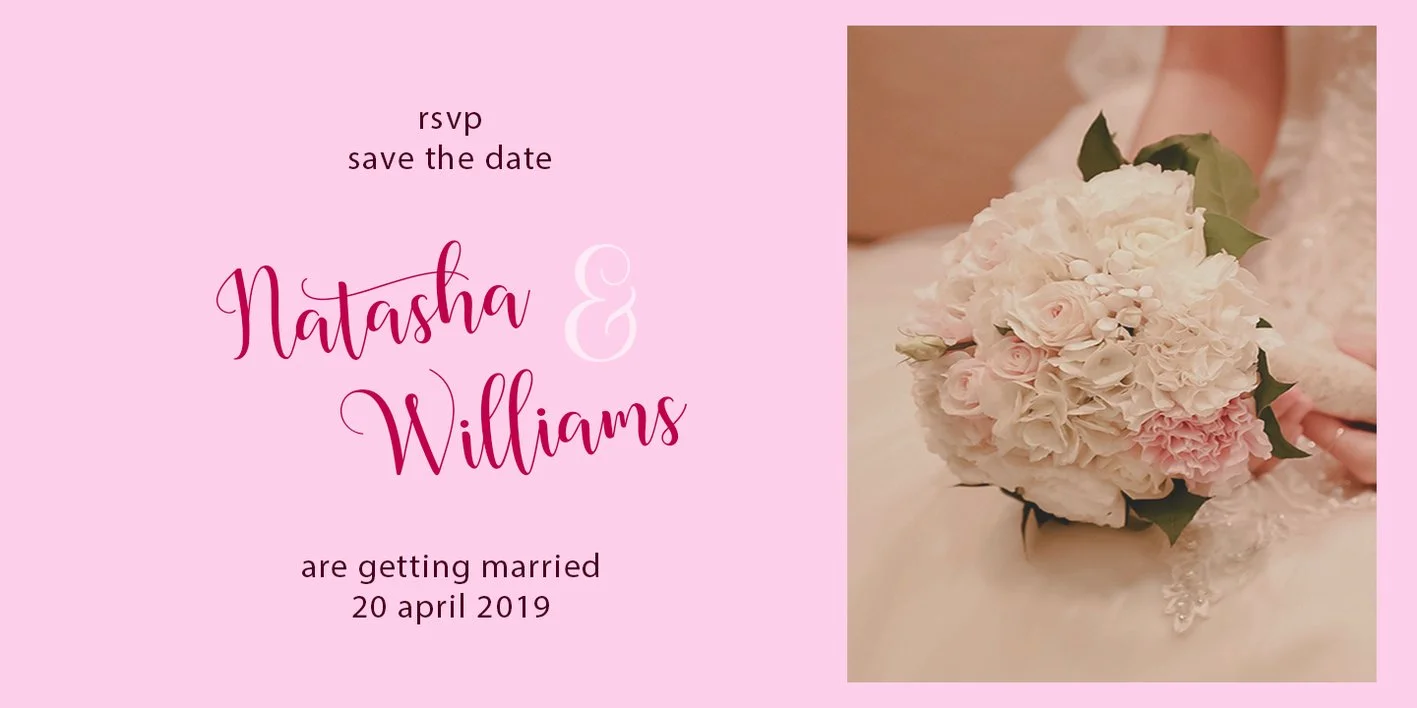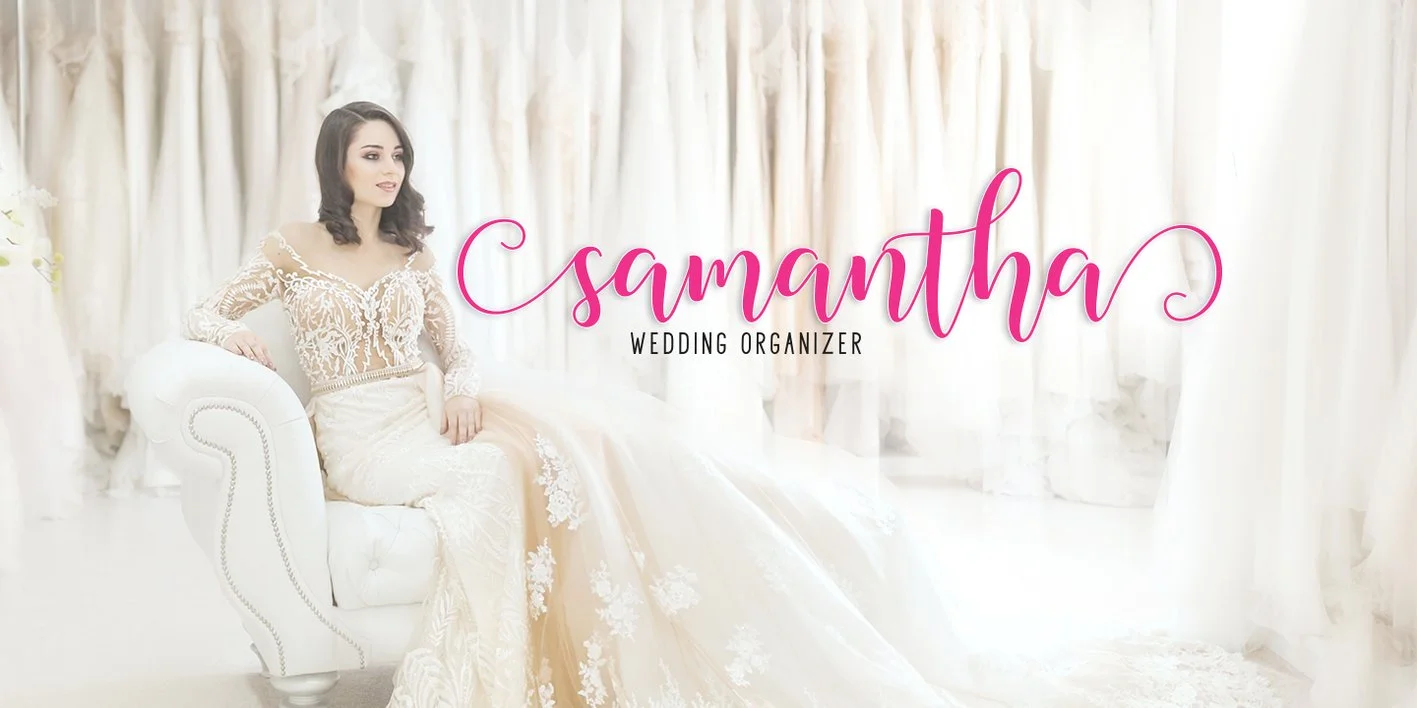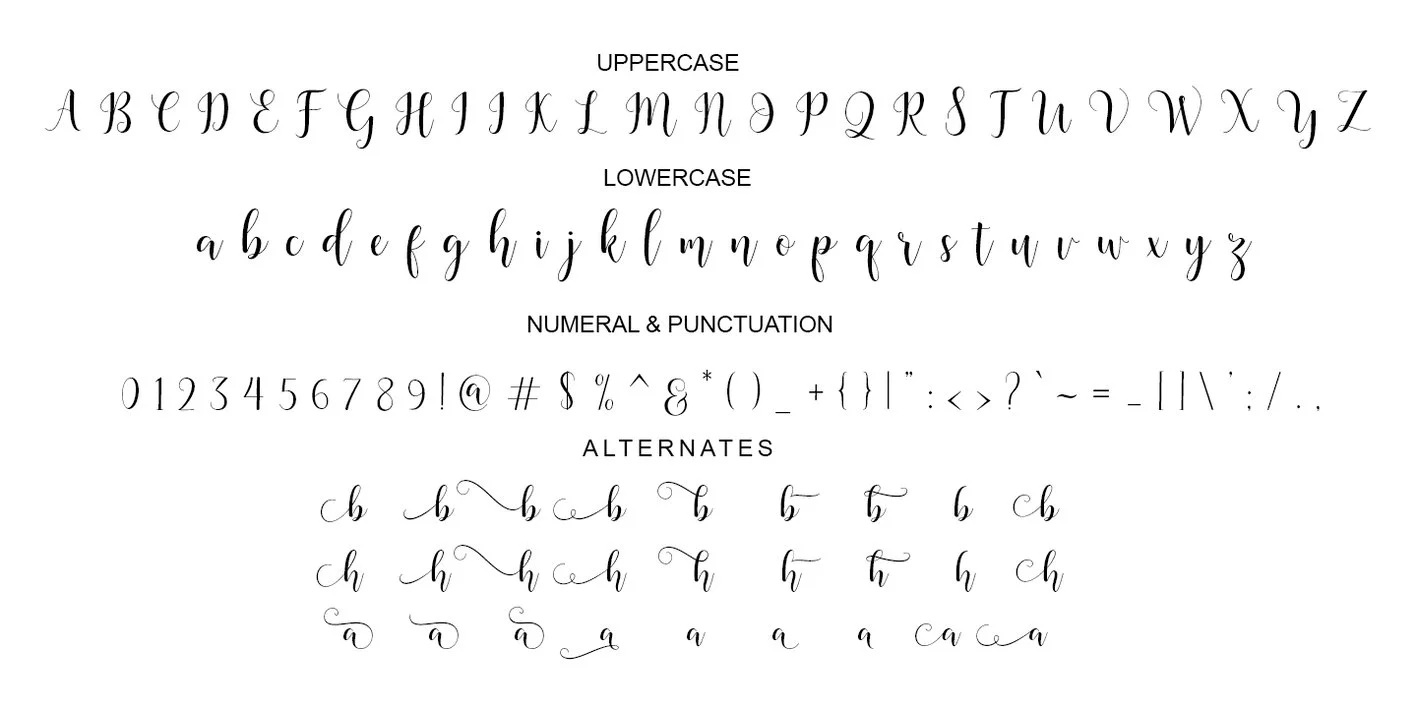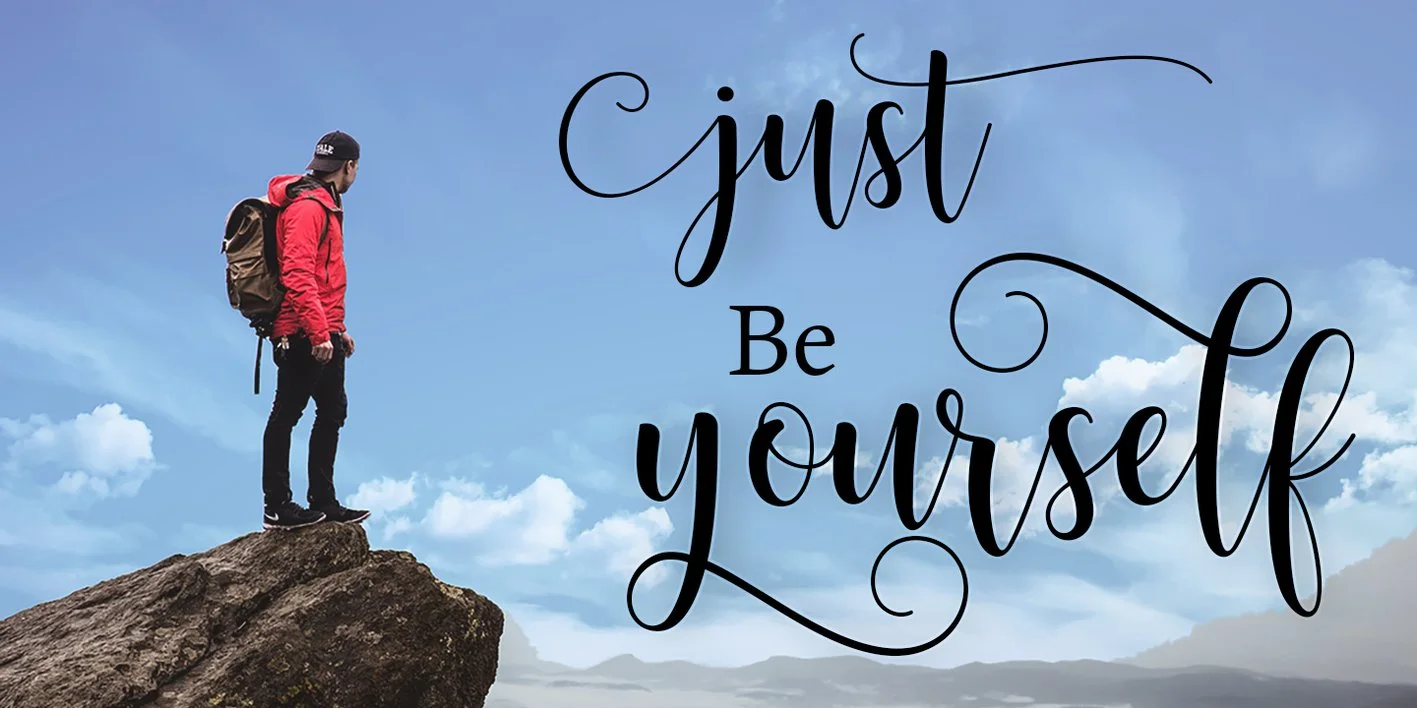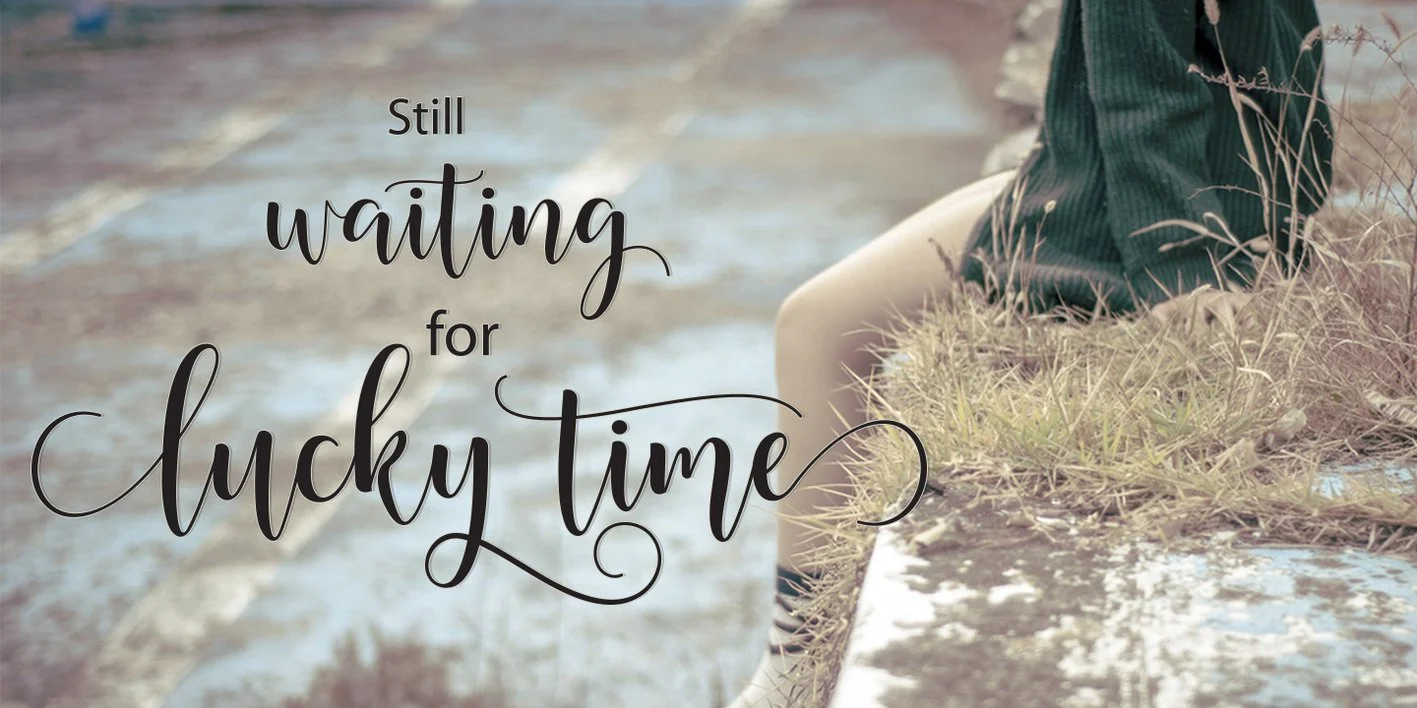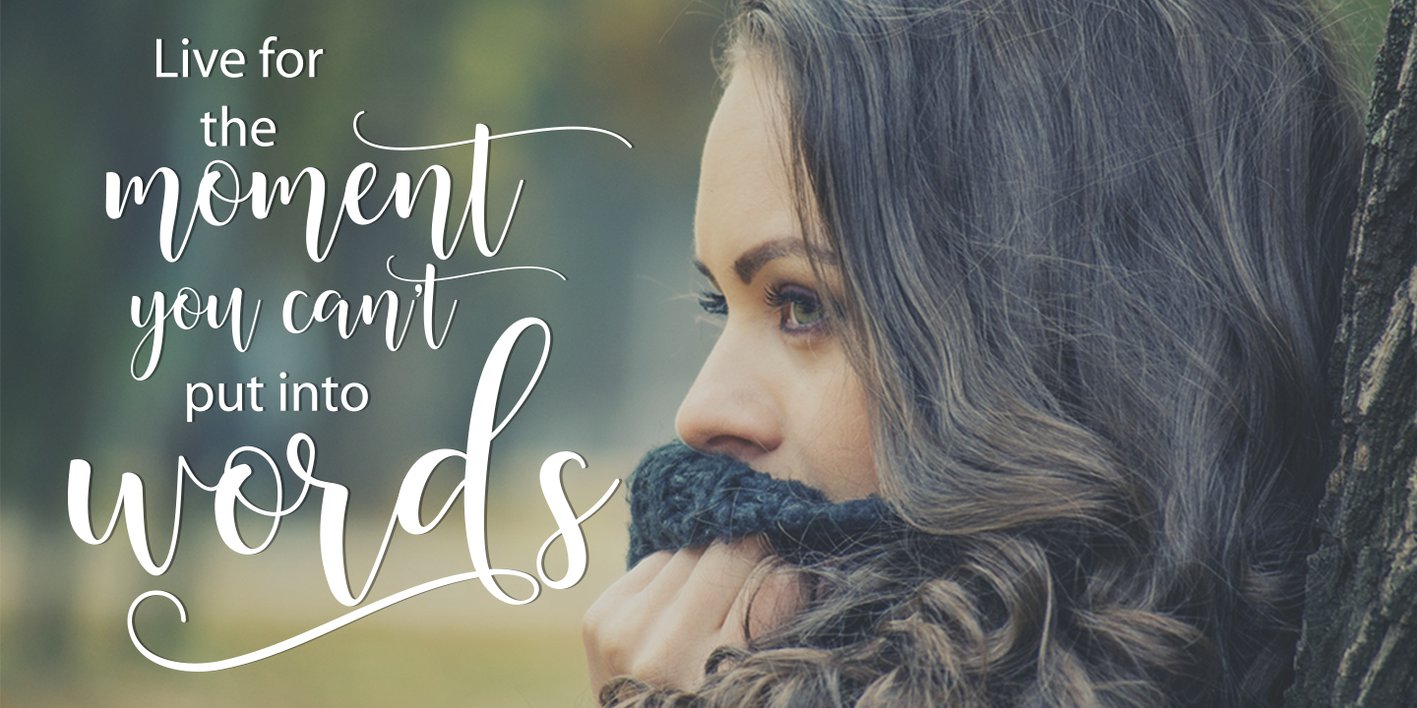
Madelina Script Font
Few typefaces manage to balance visual harmony and precise spacing with genuine day-to-day practicality. Madelina Script is one of them. The typeface brings an elegant, calligraphic sensibility to a broad range of creative disciplines, with optical balance across all weights that holds up whether the work is print-first or screen-first.
In practice, Madelina Script proves particularly effective for brand identity systems, high-end cosmetic packaging, editorial layouts, bridal materials, packaging design. Designers reaching for it find that the type decisions feel resolved rather than laboured — a useful quality when client timelines are tight.
The range of applications extends to annual reports, web design, perfume labels, product labels. That breadth is deliberate: the proportions and spacing were stress-tested across a wide range of mock briefs before the typeface was finalised.
At smaller sizes the design retains its character without becoming cluttered. This resilience across scales makes Madelina Script equally suitable for a business card and a billboard — a useful property when assets must scale across a campaign.
Independent studios handling packaging and editorial work find Madelina Script a reliable choice for projects that demand both personality and restraint. The design avoids the self-conscious quirkiness that dates quickly, settling instead for considered distinctiveness that holds up over time.